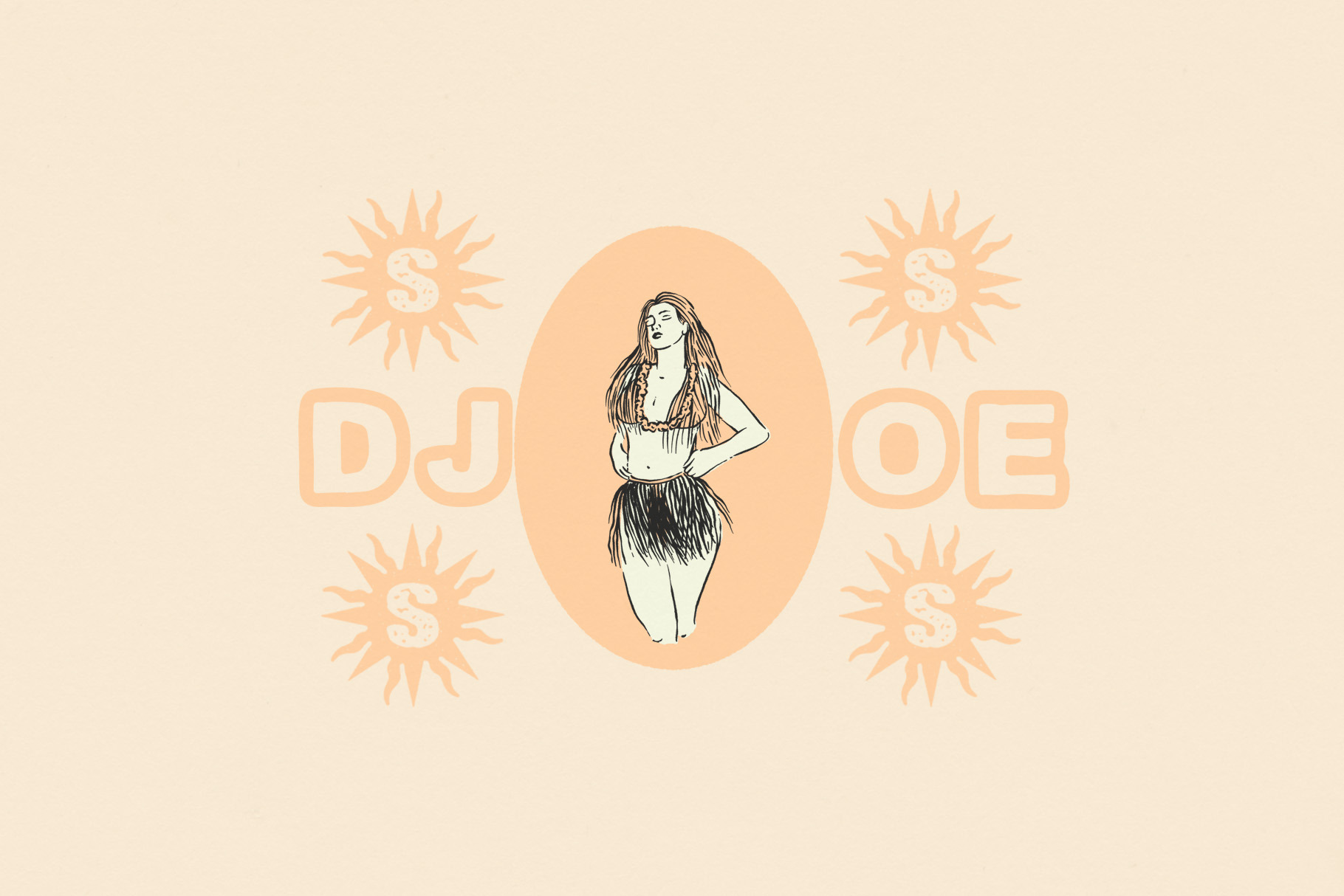
Djoe Typeface
This font is a vintage retro style typeface with bold, rounded, and playful letterforms, giving a cheerful yet nostalgic feel. Its solid and characterful design is suitable for large titles, retro music poster designs, handmade product labels, or 60-70s themed branding.
The uniqueness of this typeface lies in the bold outline style and fat letter proportions, making it very eye-catching but still easy to read. The lowercase and capital letters are made in harmony, and are equipped with various symbols and punctuation marks for design flexibility.
This typeface is perfect for those of you who want to convey a fun, free-spirited impression, and are rooted in the classical era with a modern touch